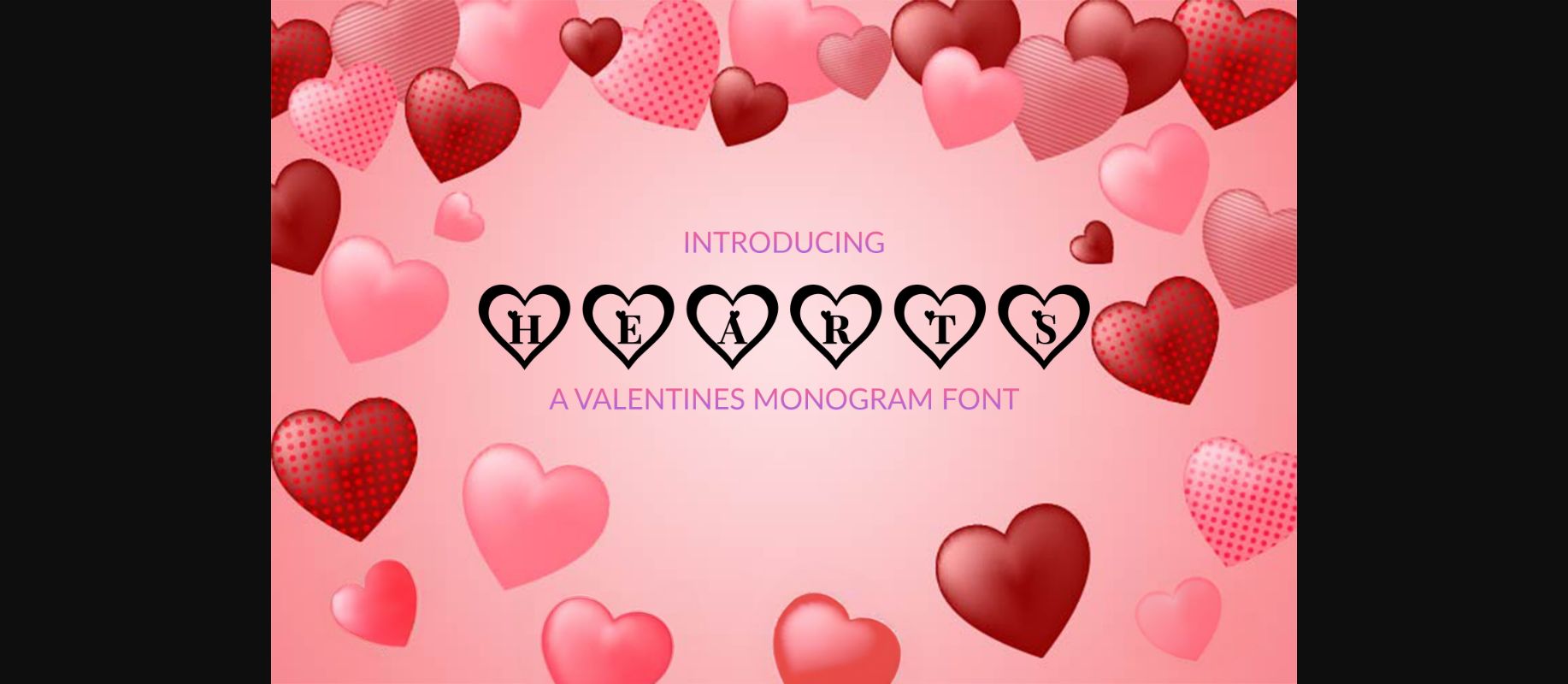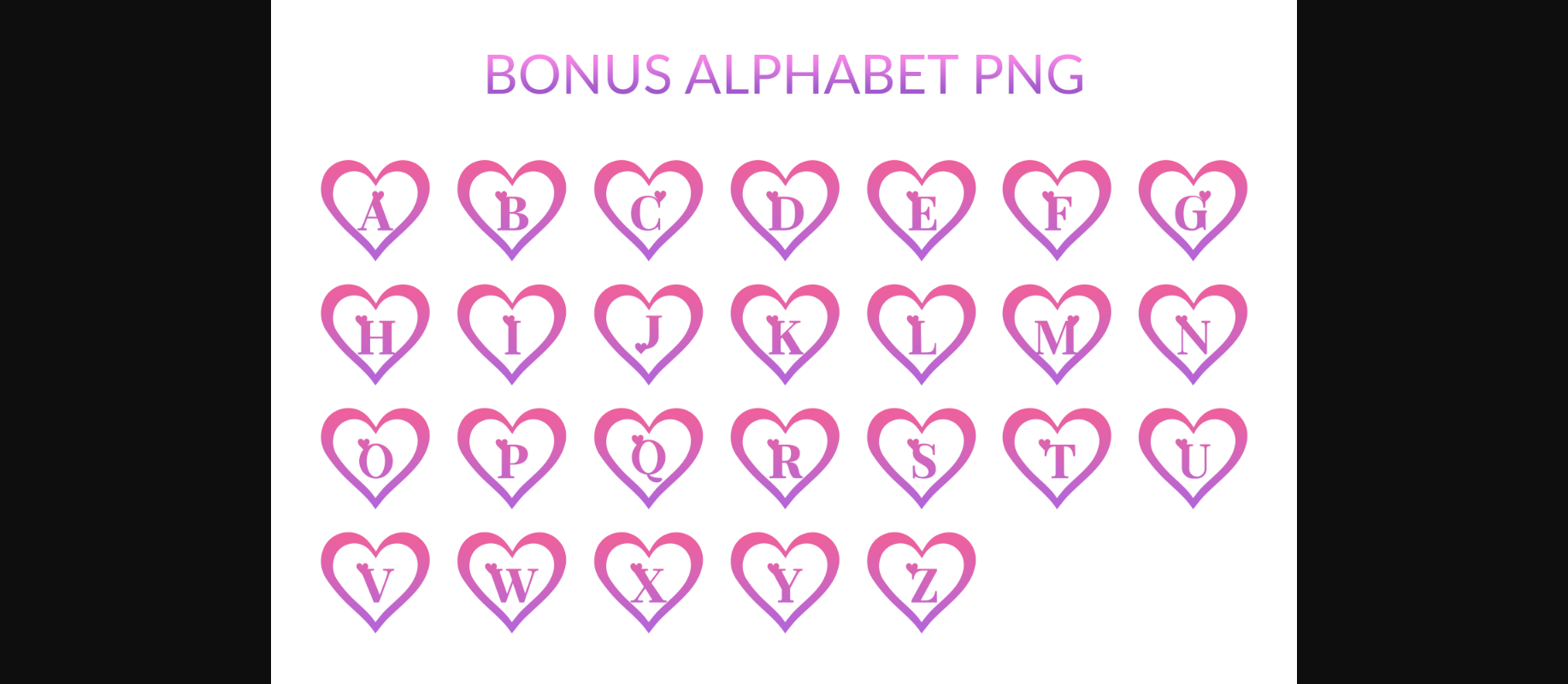
Hearts Font
About Hearts Font
Introducing PDG Hearts Monogram – the simplistic heart monogram font that will add a touch of romance to your project.
Along with the font, you will receive a complimentary bonus colored alphabet set in transparent PNG format.